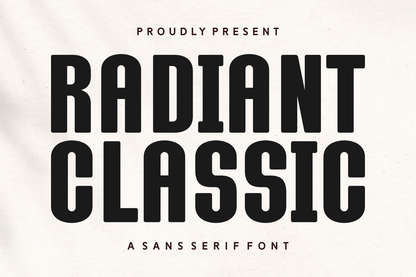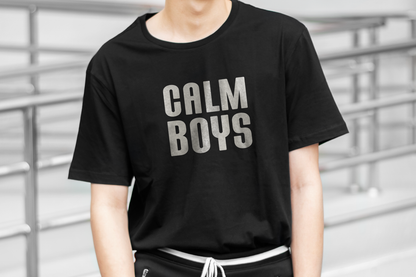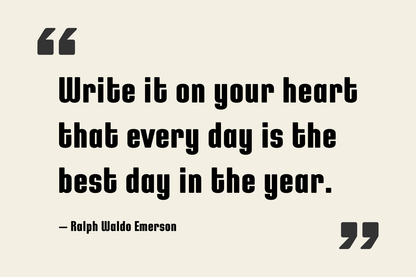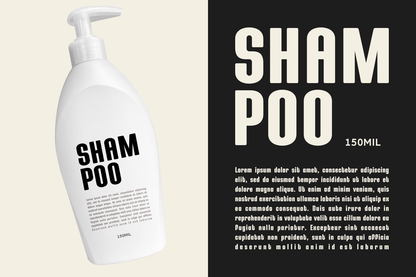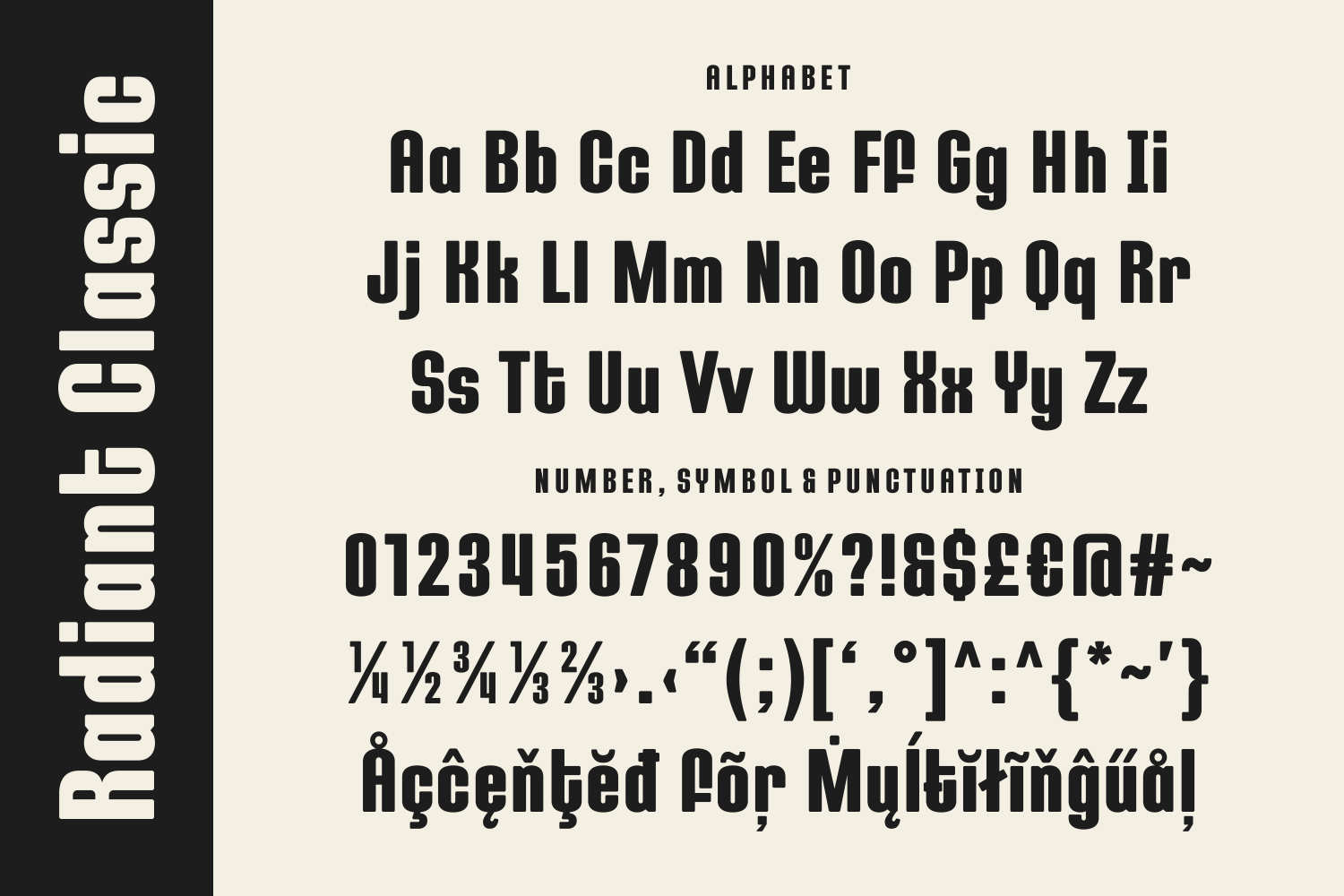
Radiant Classic is a bold sans serif font with vintage roots and contemporary attitude. Its wide, blocky forms and softened corners give it a nostalgic yet fresh aesthetic. Perfect for logos, apparel, signage, and editorial work that needs to command attention and evoke retro charm.